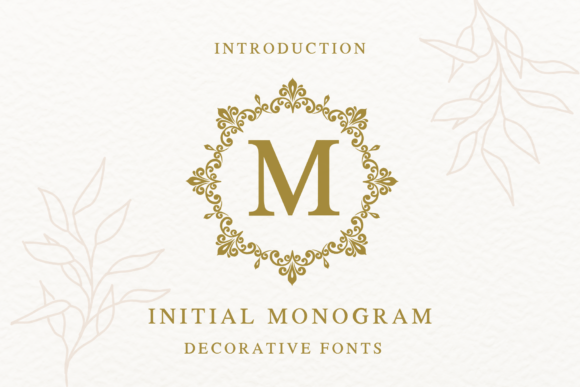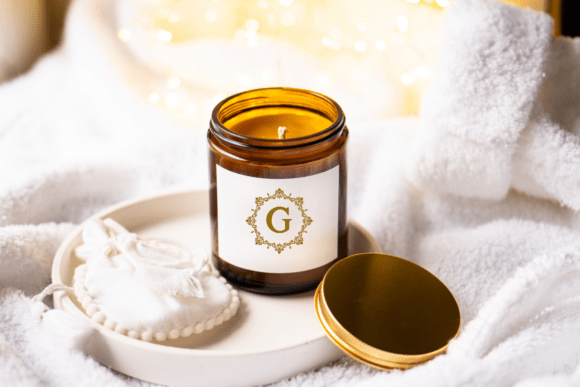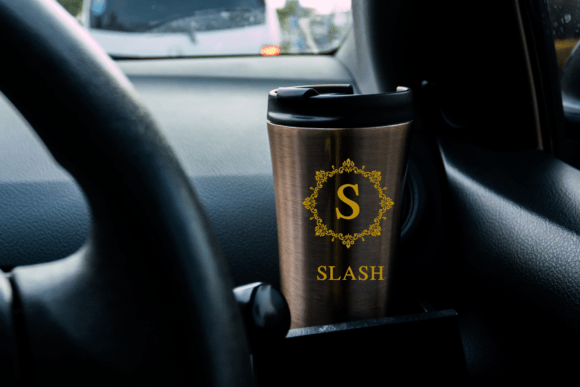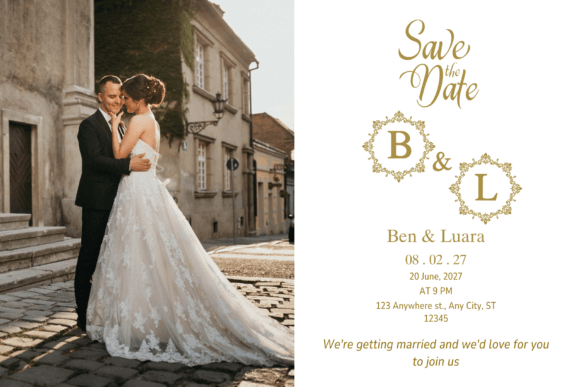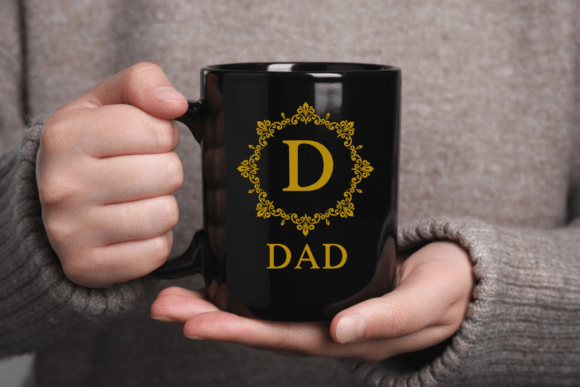
Initial Monogram Font
Initial Monogram Font is elegant serif font that will bring in your projects a touch of luxury and style. It’s perfect match for logotypes, branding, business card, wedding monograms and invitations, blog headlines and much more. Flip through all the previews and get inspired like I was while creating this font.